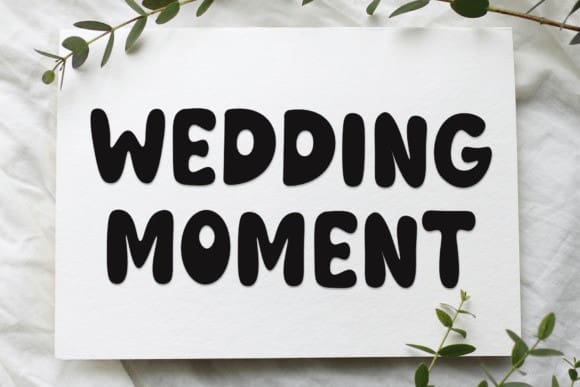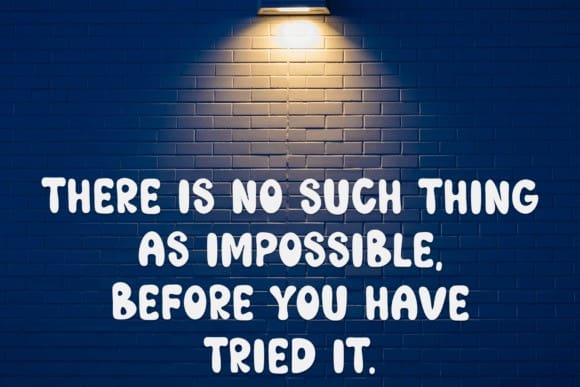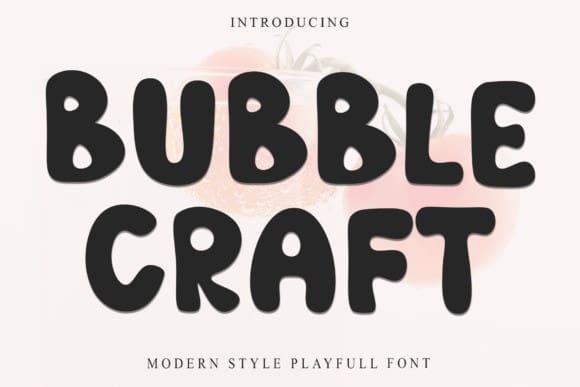
Bubble Craft Font
Bubble Craft Font is a fun and bold display font with a bubbly, rounded design. It’s perfect for making playful, eye-catching text for posters, logos, and more!